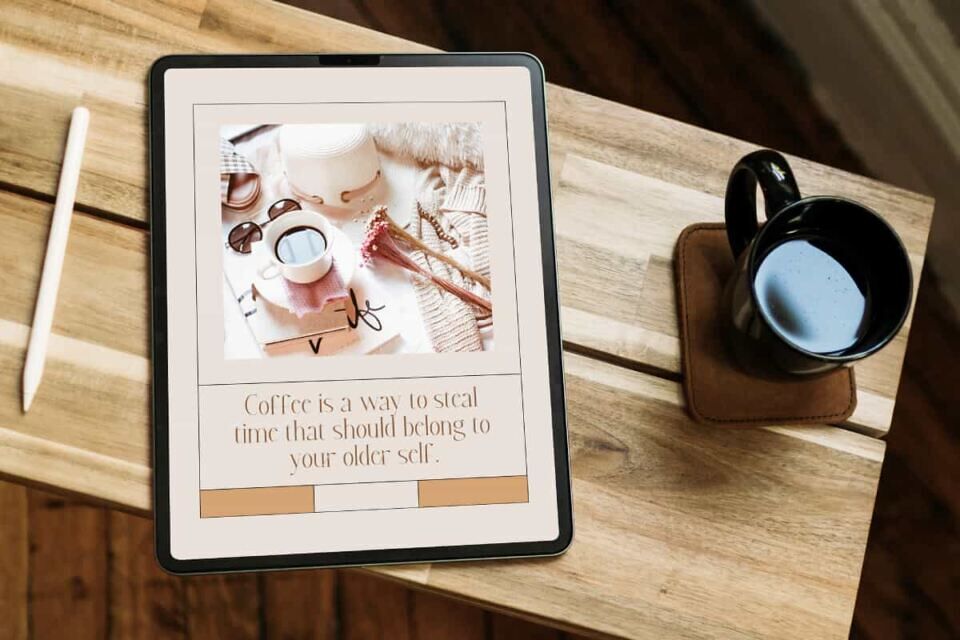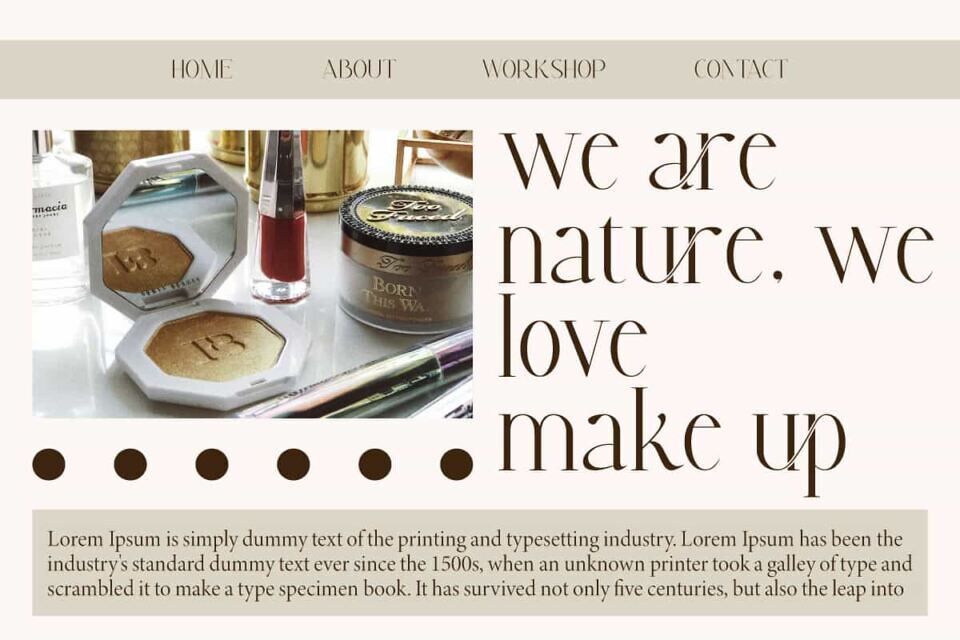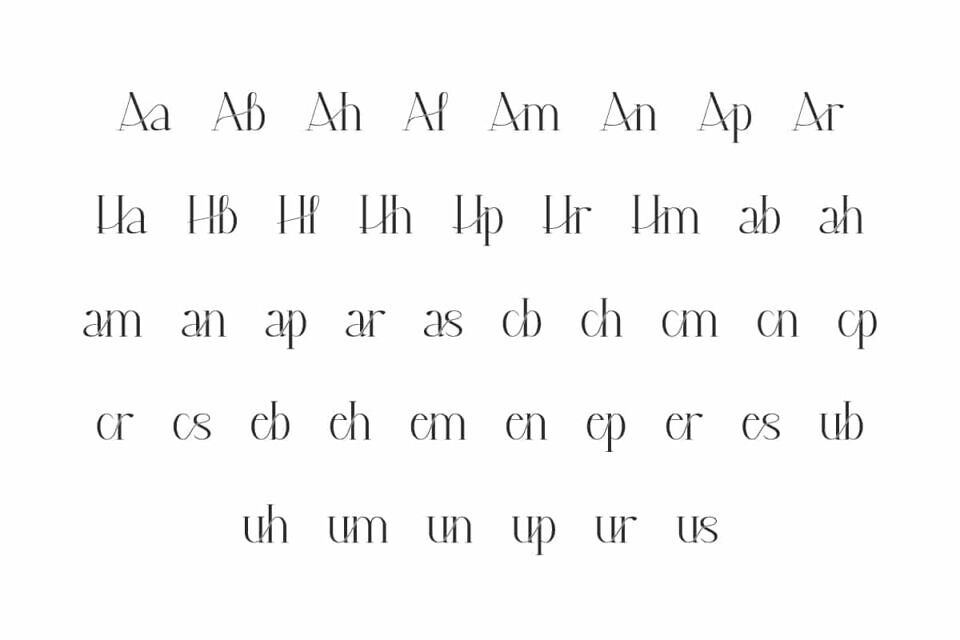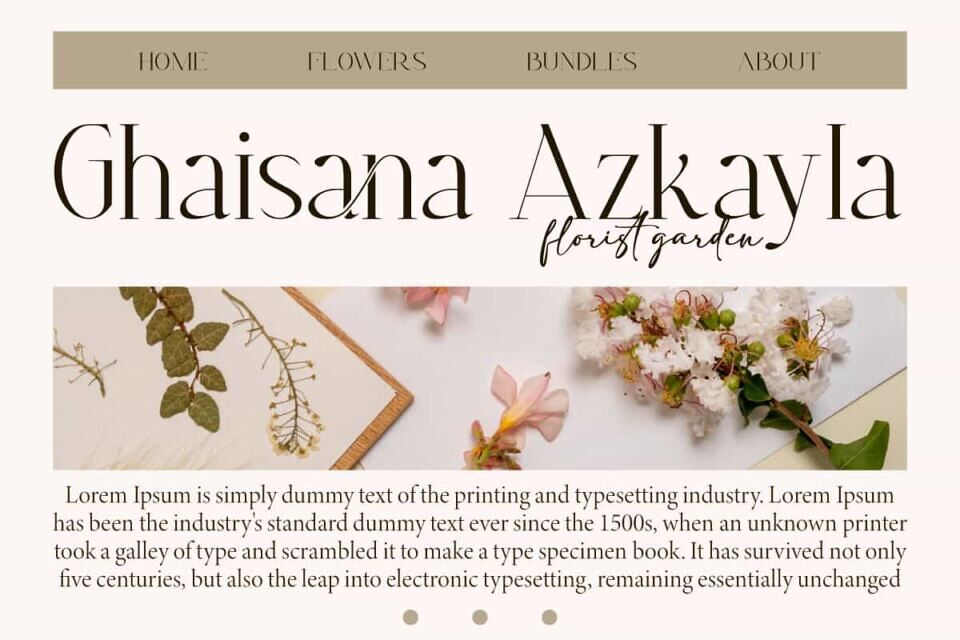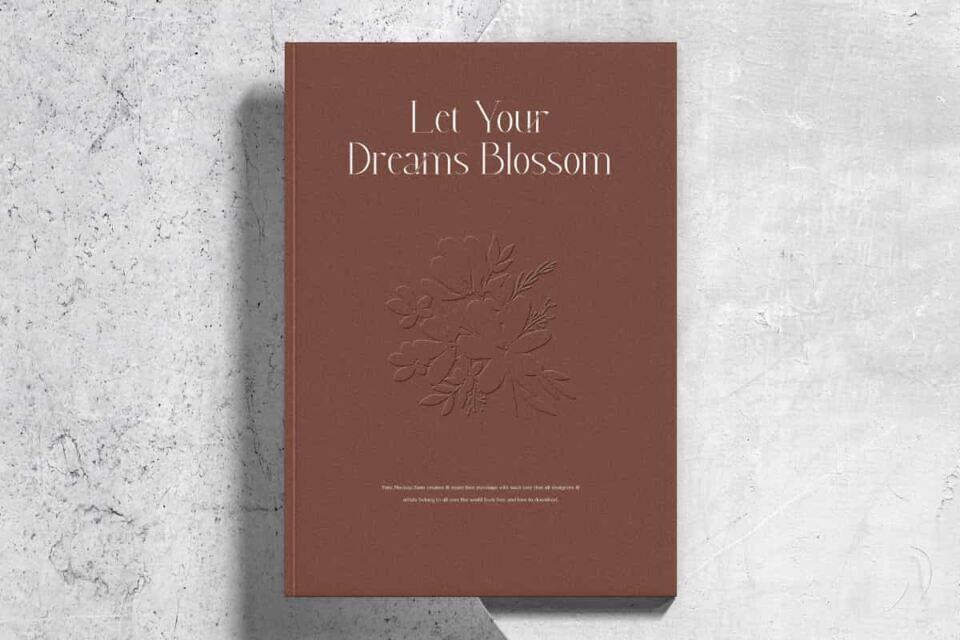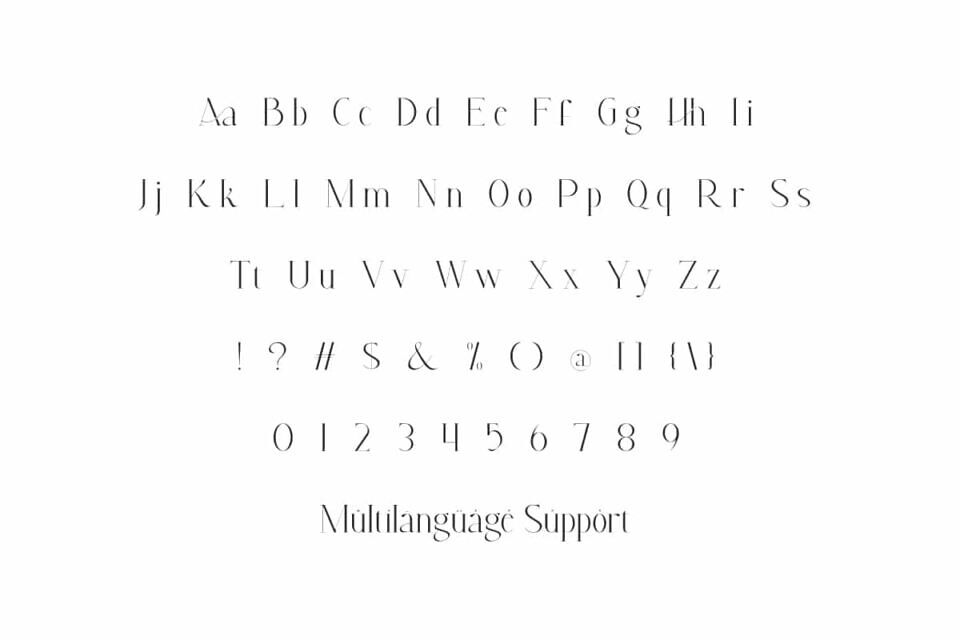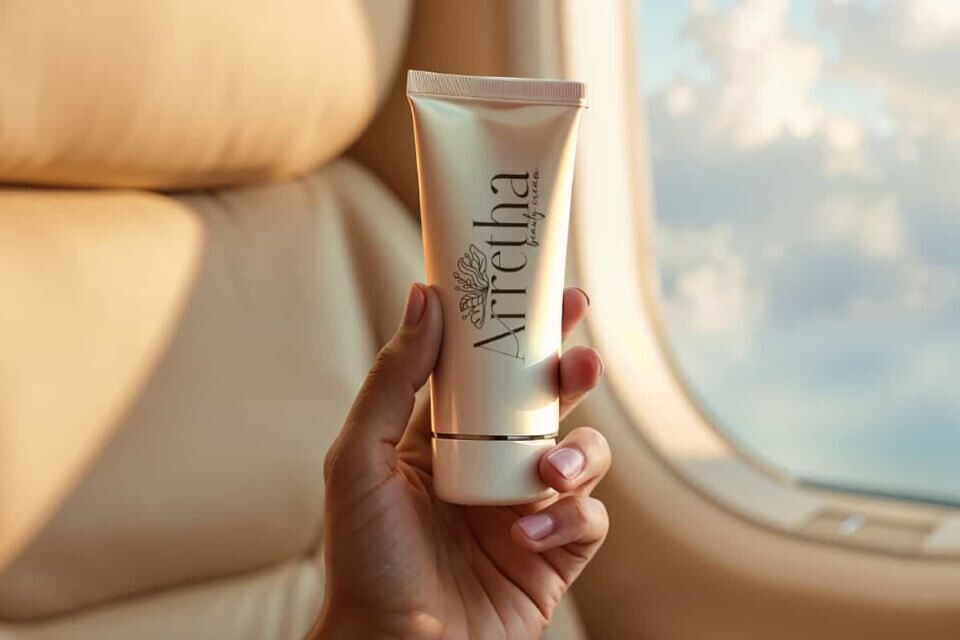
Anneita Aliesa Font
Anneita Aliesa Font is a serif font with a touch of elegance that make it standout. The smooth lines combined with a lovely curved elements. This beautiful font will be perfect for any projects, it can be used for invitation, label, advertisement, blog, brand image, layout design, logo, quotes, stationery, template design, website, and more!
Anneita Aliesa Font includes full set of Uppercase and Lowercase Basic Characters, Numerals, Punctuation, Symbol, and Ligature character. This font creates a soft look but still has a strong character. It’s perfect for accessories and jewelry, beauty product, event or wedding organizer, fashion, florist, furniture, real estate, spa salon, etc.
Designed by: VinType